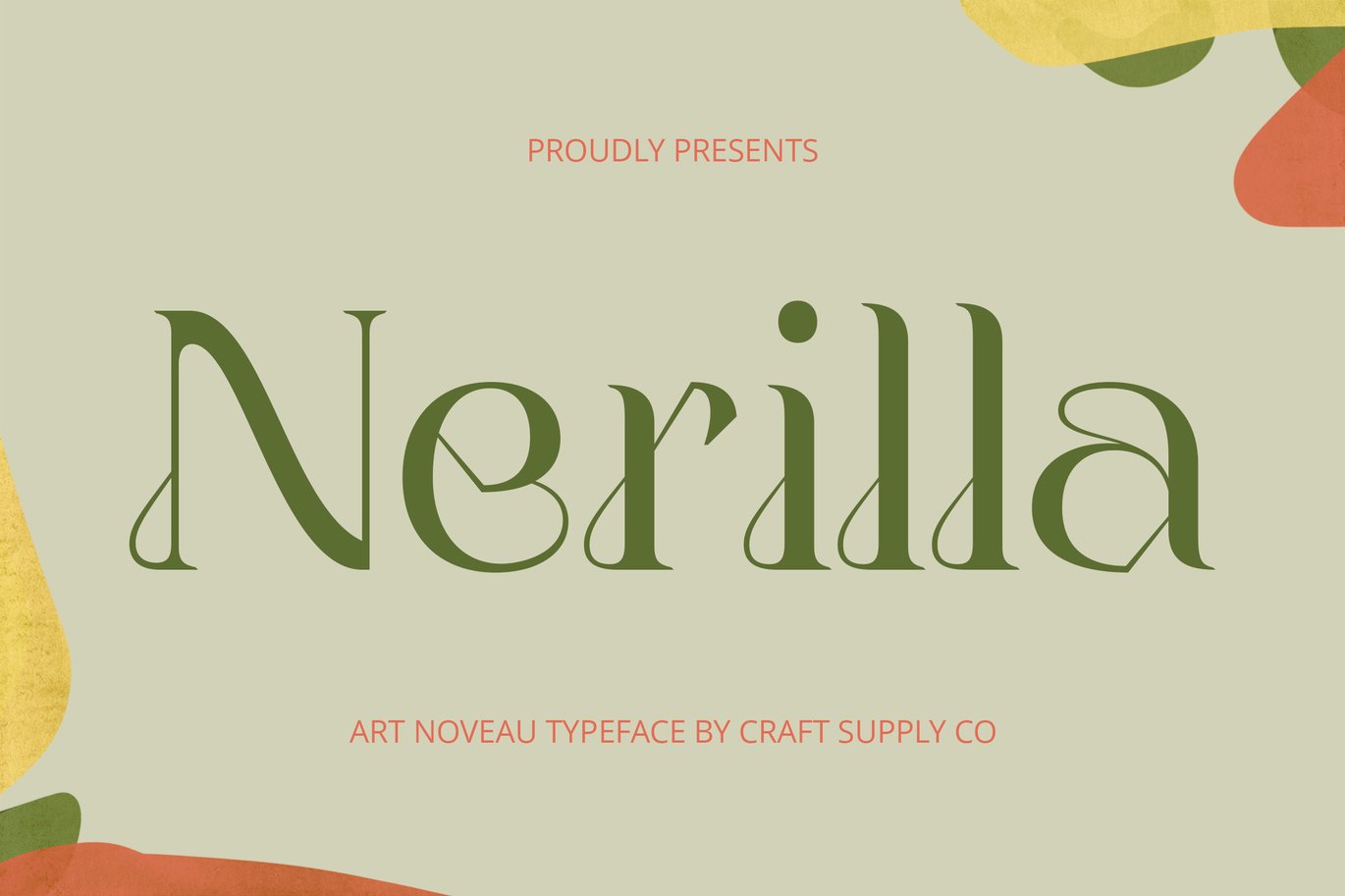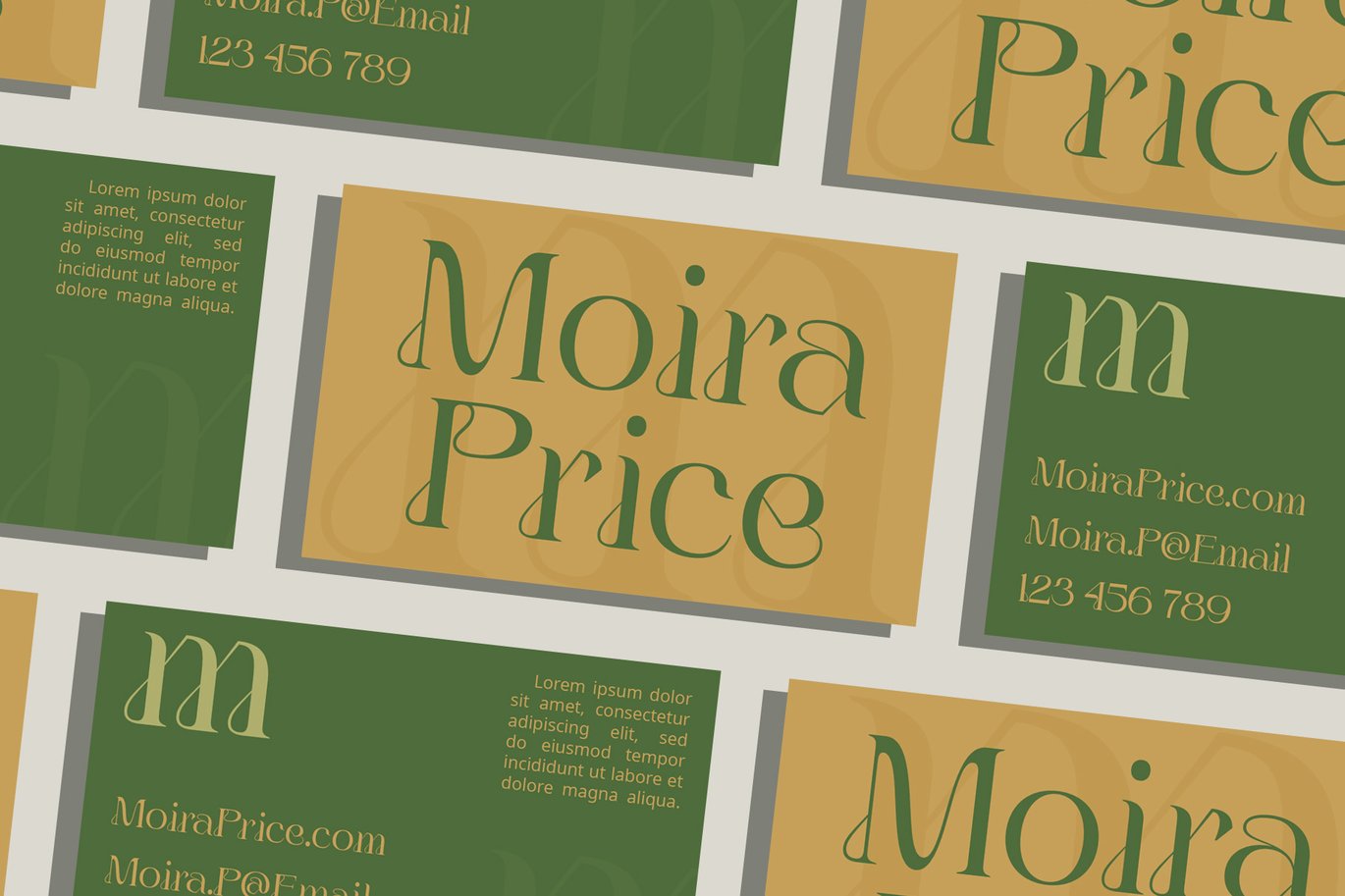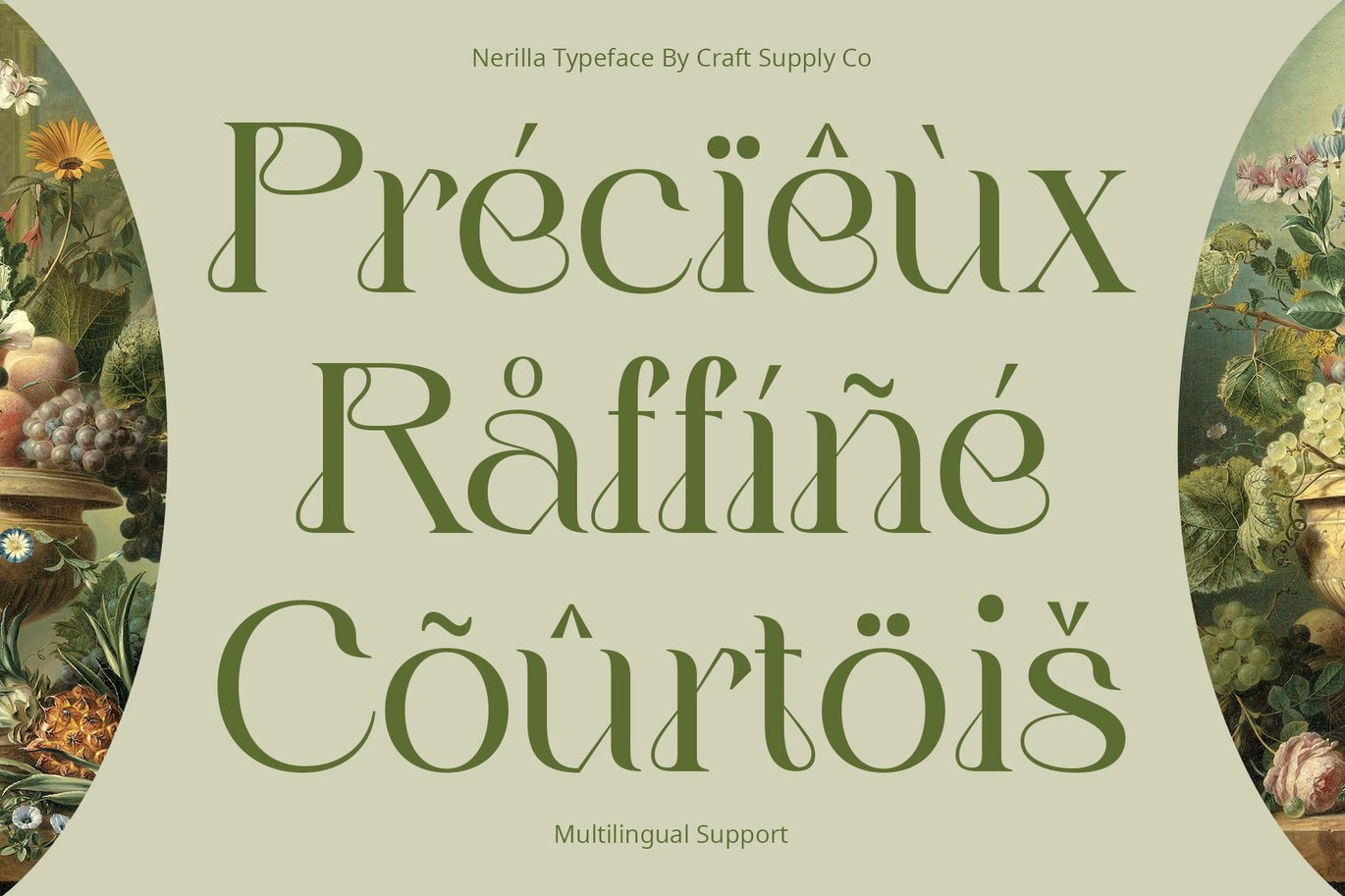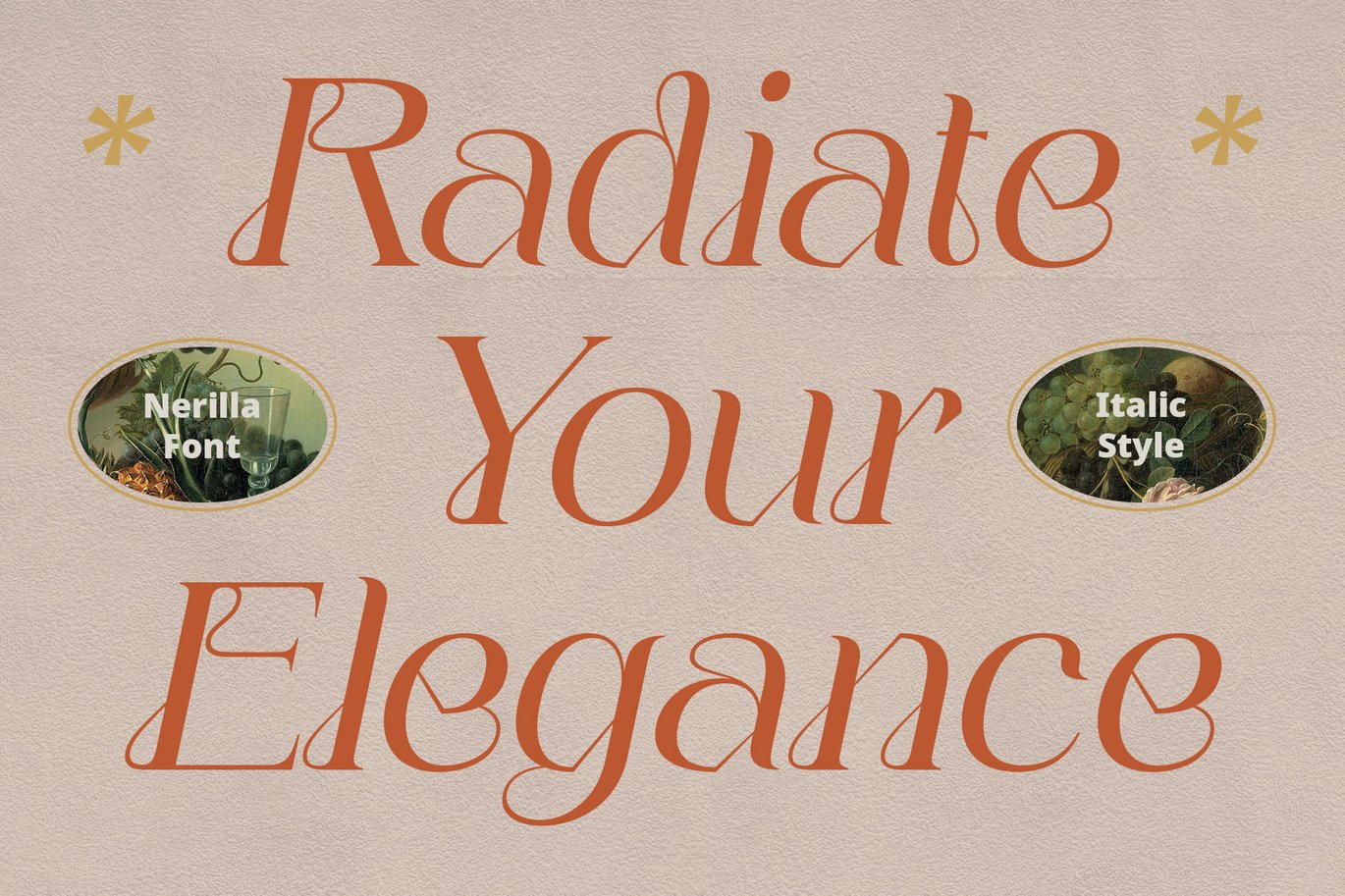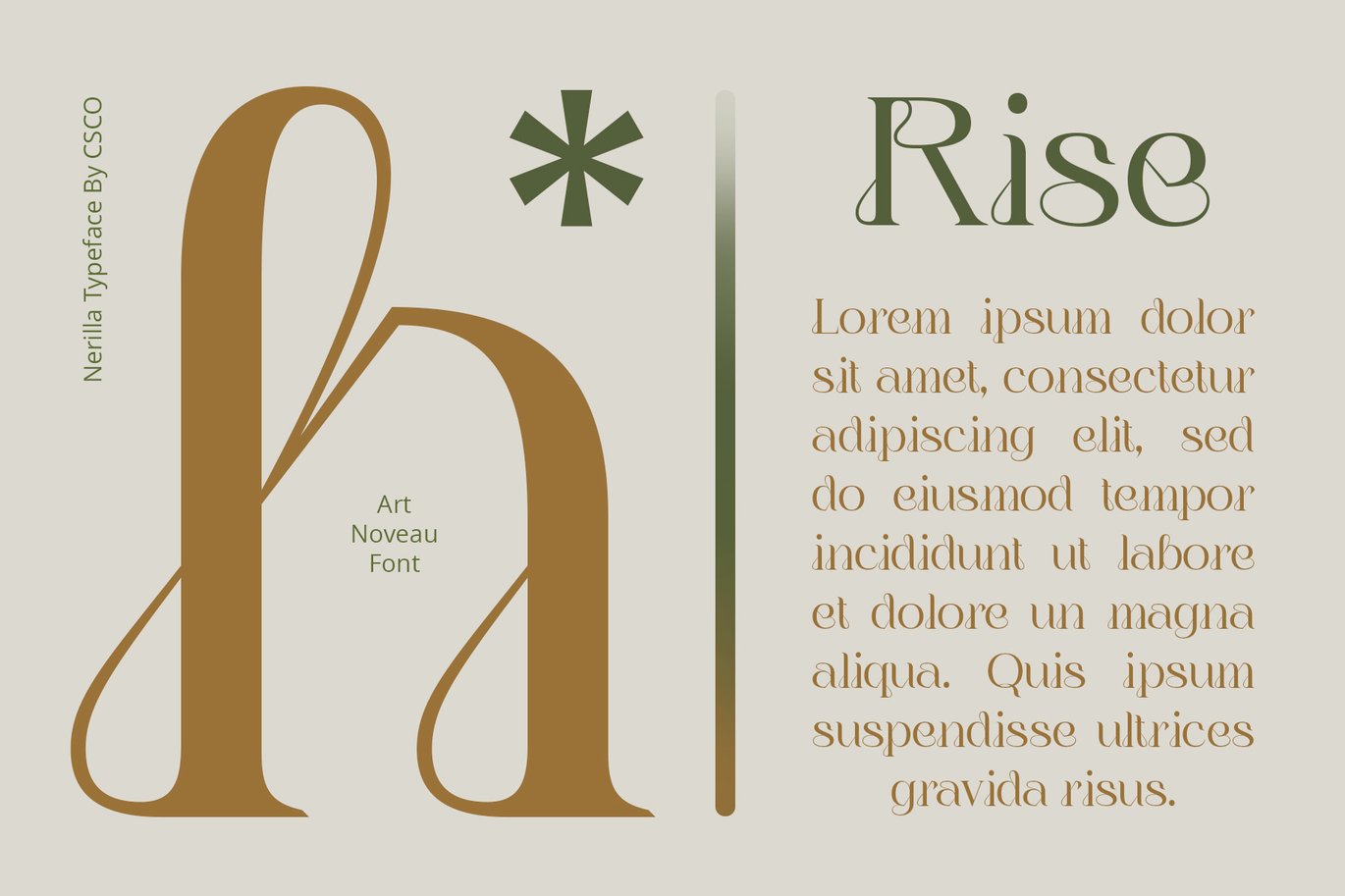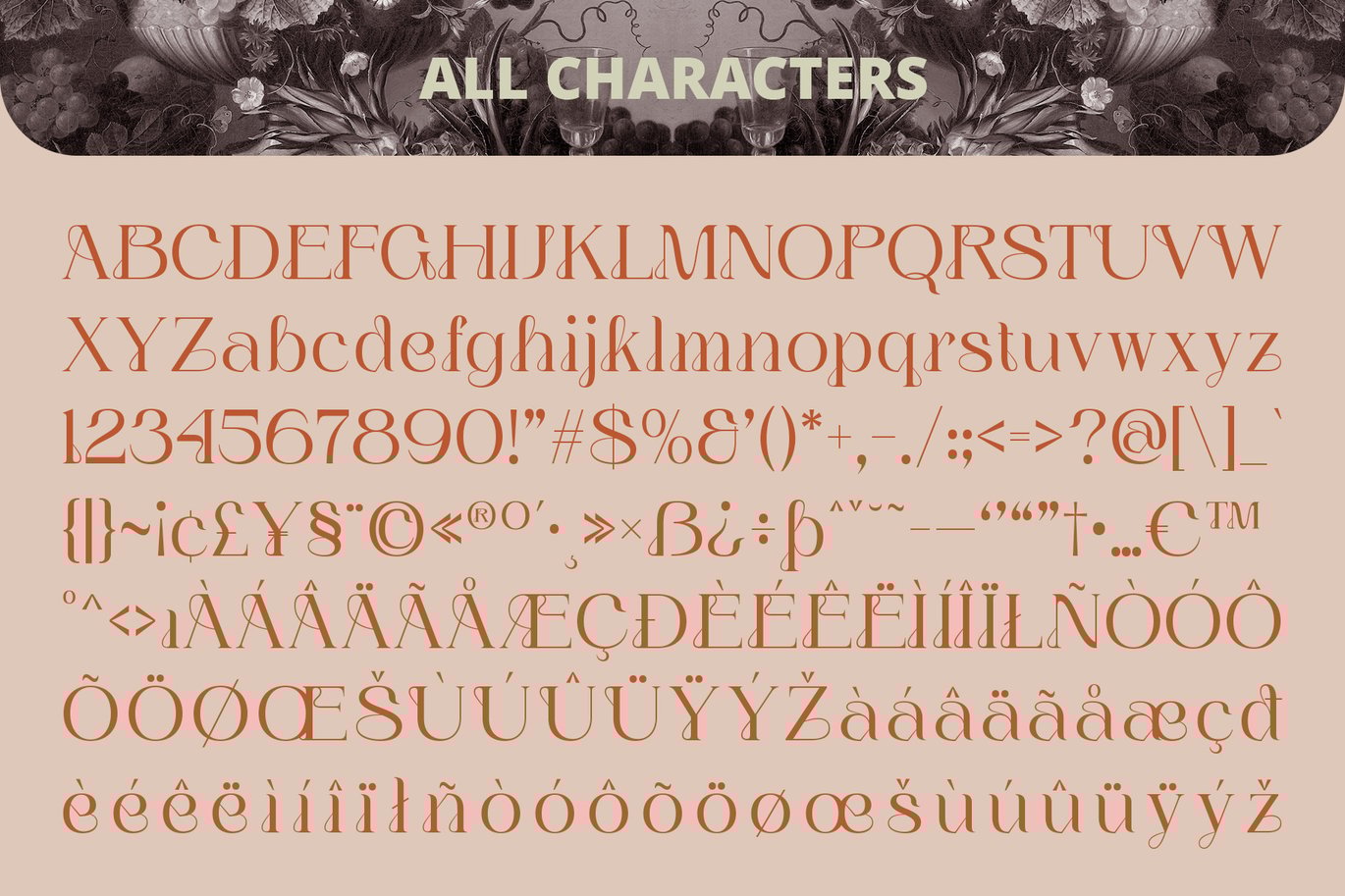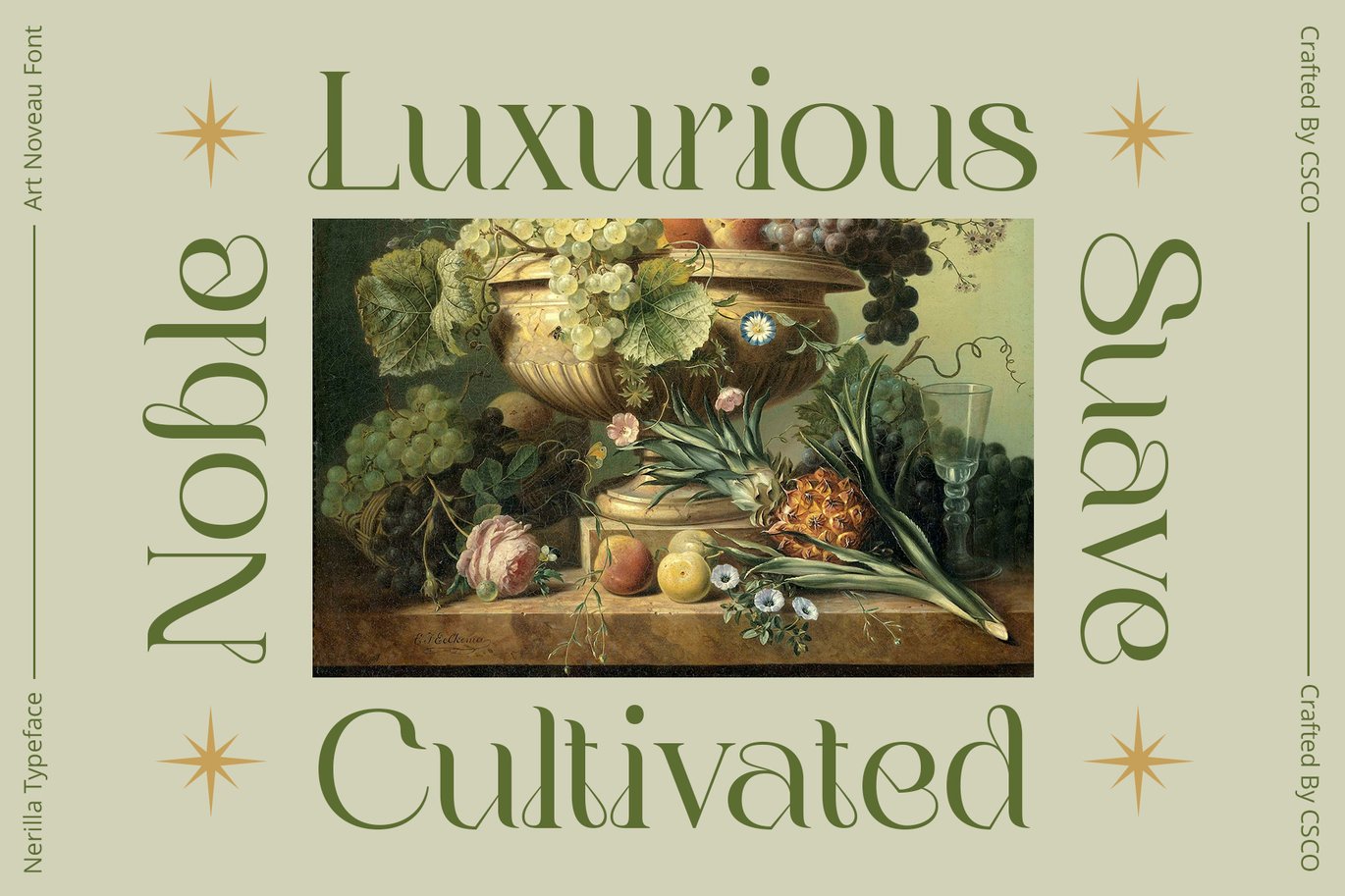
Nerilla – Art Nouveau Font
Nerilla – Art Nouveau Font: Where Beauty Meets Elegance
Art Nouveau-style Serif Font
Nerilla Font is an Art Nouveau-style serif font that brings beauty and elegance to any design. Inspired by the organic forms and intricate details of the Art Nouveau movement, Nerilla Font is perfect for projects that require a touch of sophistication and timeless charm.
Intricate Details for a Refined Look
With its delicate serifs and intricate details, Nerilla Font exudes a sense of refinement and elegance. Each letterform is carefully crafted to enhance readability while maintaining the artistic flair that defines the Art Nouveau style.
Versatile Usage with a Classic Appeal
From elegant invitations to luxurious branding, Nerilla Font offers versatility with a classic appeal. Its timeless aesthetic makes it suitable for a wide range of design applications, including editorial layouts, packaging, and more.
Captivating and Elegant Design
Nerilla Font’s captivating and elegant design makes it a standout choice for designers looking to add a touch of sophistication to their projects. Whether used as a headline font or for body text, Nerilla Font adds beauty and elegance to any design.